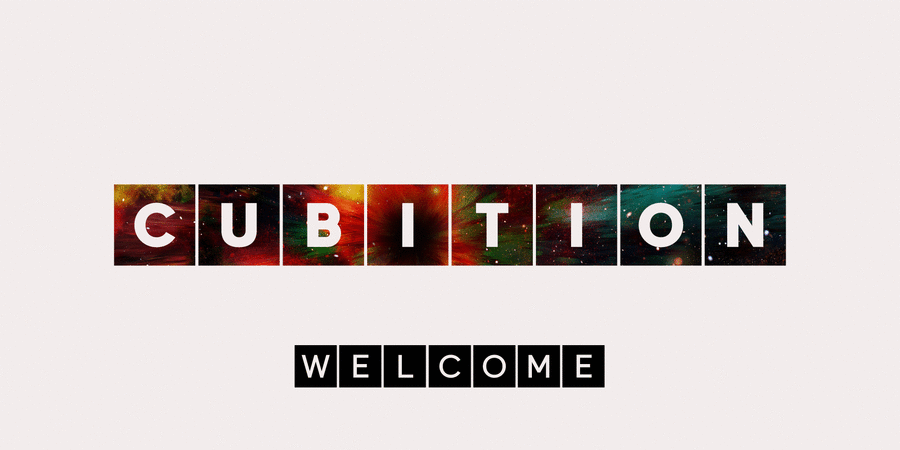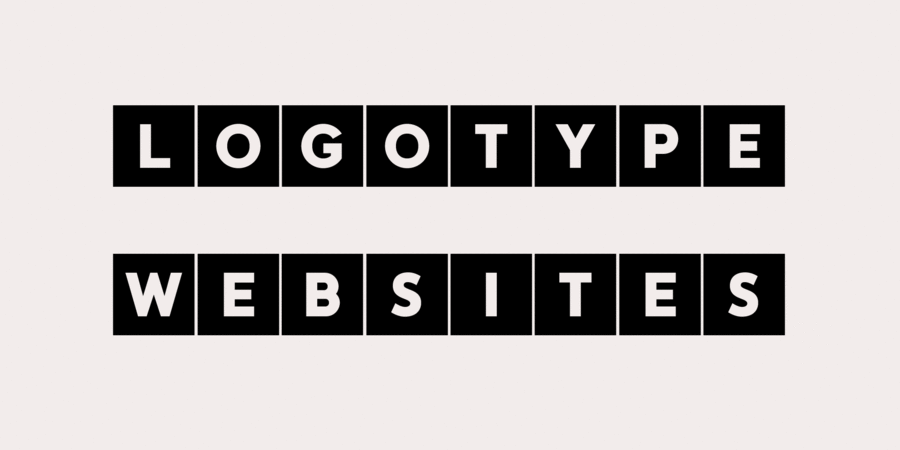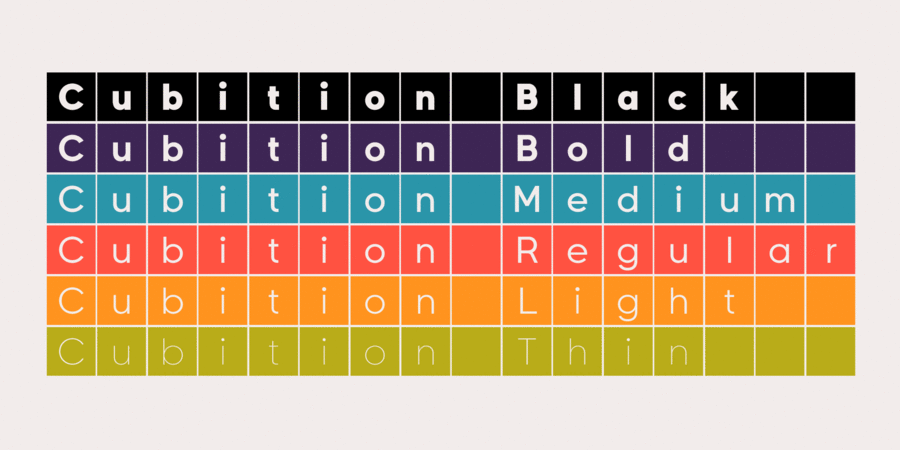
Cubition font family was created on the base Everest Pro sans-serif typeface. It is brilliantly suited for graphic design and display use and perfect for brand identity, magazines, newspapers, books, websites, and advertising.
The typeface was designed by Mykola Savchuk in 2021.
Associations for font family CubitionTypeface personality and character:
minimalistic, crisp, delicate, easy, chilly, fresh, thin, laconic, clear, flat, high-quality, weightless, transparent, logical, accurate, air, glass, sharp, wire, urban, static, solid, available, elementary, correct, strict, serious, stable, independent, responsible, west, business, cold, calm, modern, fashionable, globalized, globalistic, schematic, engineering, clean, moderate, standard, universal, clever, square, close-fitting, black, simple, neutral, significant, mandatory, reputable, strong, heavy, convincing, important, urbanistic, reliable, self-assured, loud, durable, manly, cutting, workman, industrial, severe, technical, formidable, splashy, notable, dense, active, bright, machine, technogenic, tough, ambitious
perfumery, Eau de Toilette, shampoo, cosmetics, fashion, diet, design, hygiene, purity, city, society, airport, Metro, navigation, innovations, architecture, science, clothes, advertising, store, medicine, footwear, scheme, engineer, device, mathematics, water, retail, constructor, coworking, game, entertainment, show, toy, TV, urban studies, building, mechanical engineering, security, fitness equipment, truck, trucker, power station, factory, brick, port, safe, repairs, protection, construction, excavator, workman Typeface exhibits stylistic traits: